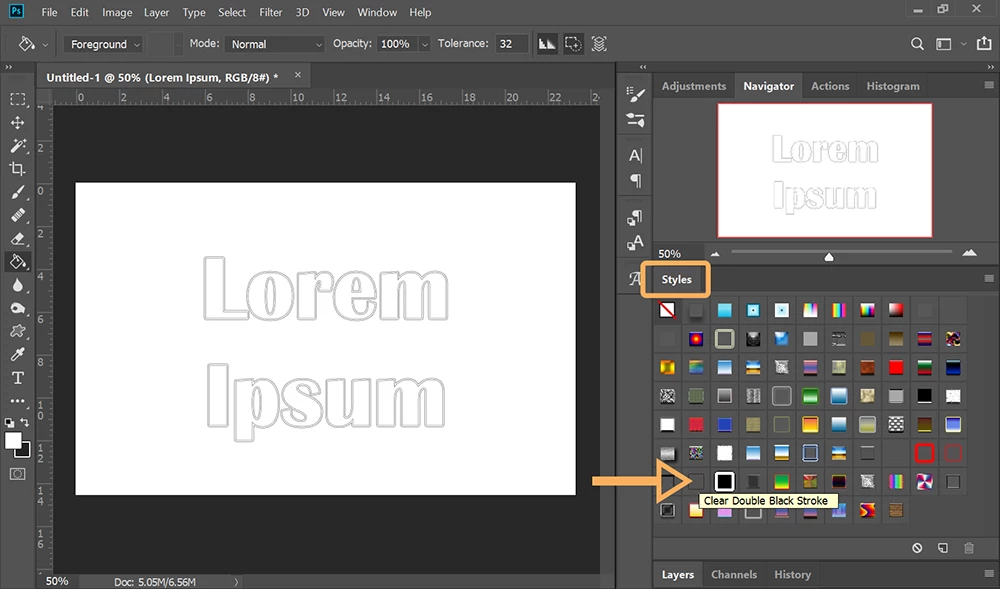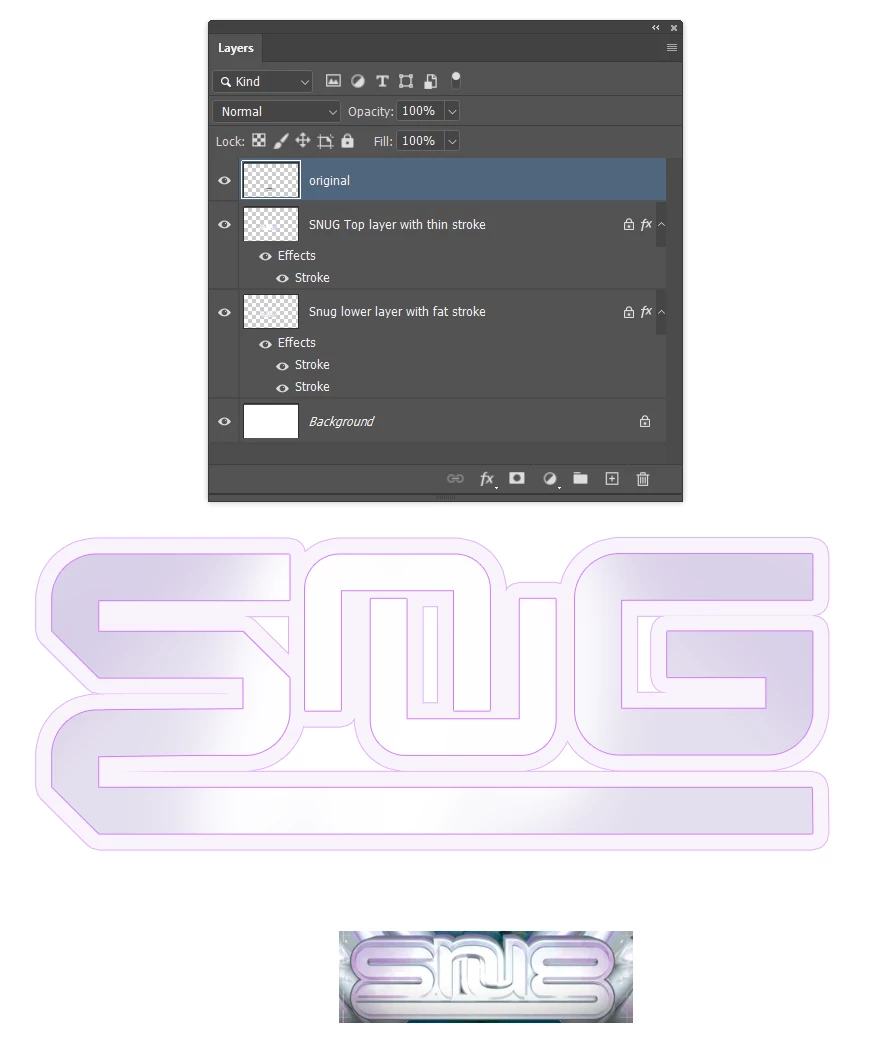
Does anyone have an Idea on how to create this font effect  in illustrator, photoshop or other media?
Create your graphic.
I used separate type layers for each letter.
Converted the text to shapes (under Type menu) and reformed.
I could have added an inner gradient layer style, but I chose to lock the transparency, and paint on the coloured shading.
Give that layer a 1 pixel mauve/purple stroke.
Copied the layer, and edited the lower of the two increasing the stroke to 16 and changed colour to the light mauve.
Added a second stroke _under_ the 16 pixel stroke. This one was set to 17 pixels, and colour set to a darker mauve.
I don't know what that original font is, but I'd love to add it to my fonts.
Photoshop > Styles Panel.
Select text layer and apply Clear Double Black Stoke (see screenshot).